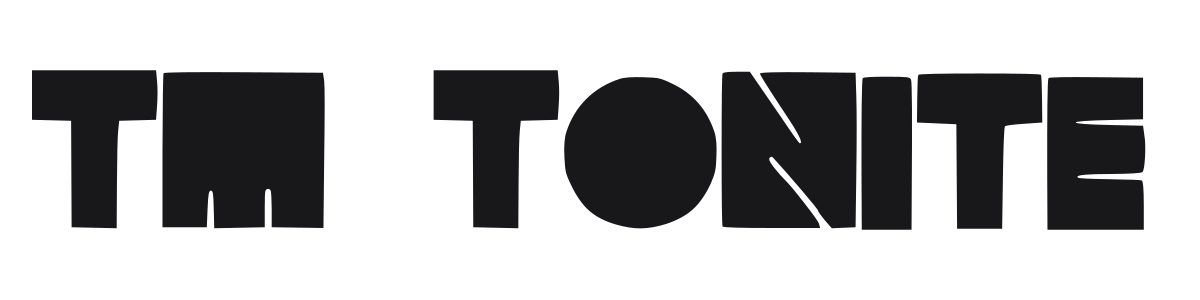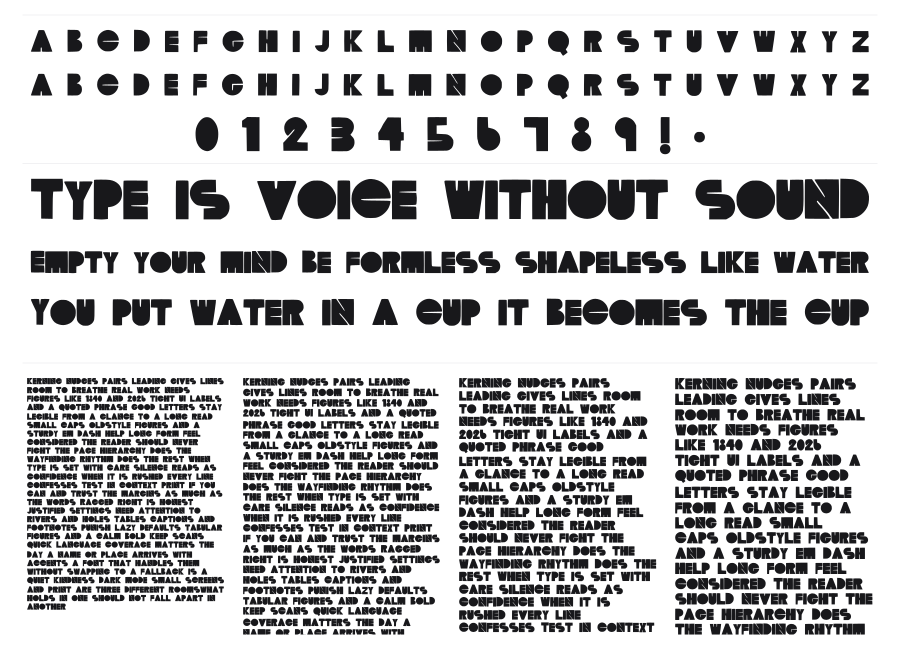
TM Tonite
by Jake Luedecke · Website
TM Tonite is a heavy geometric display font drawn from the graphic language of tobyMac's album art. Chunky black characters with diagonal cut-aways and circular counters give it a raw, fragmented energy that reads instantly at large sizes. It carries that unmistakable late-2000s Christian hip-hop visual identity.